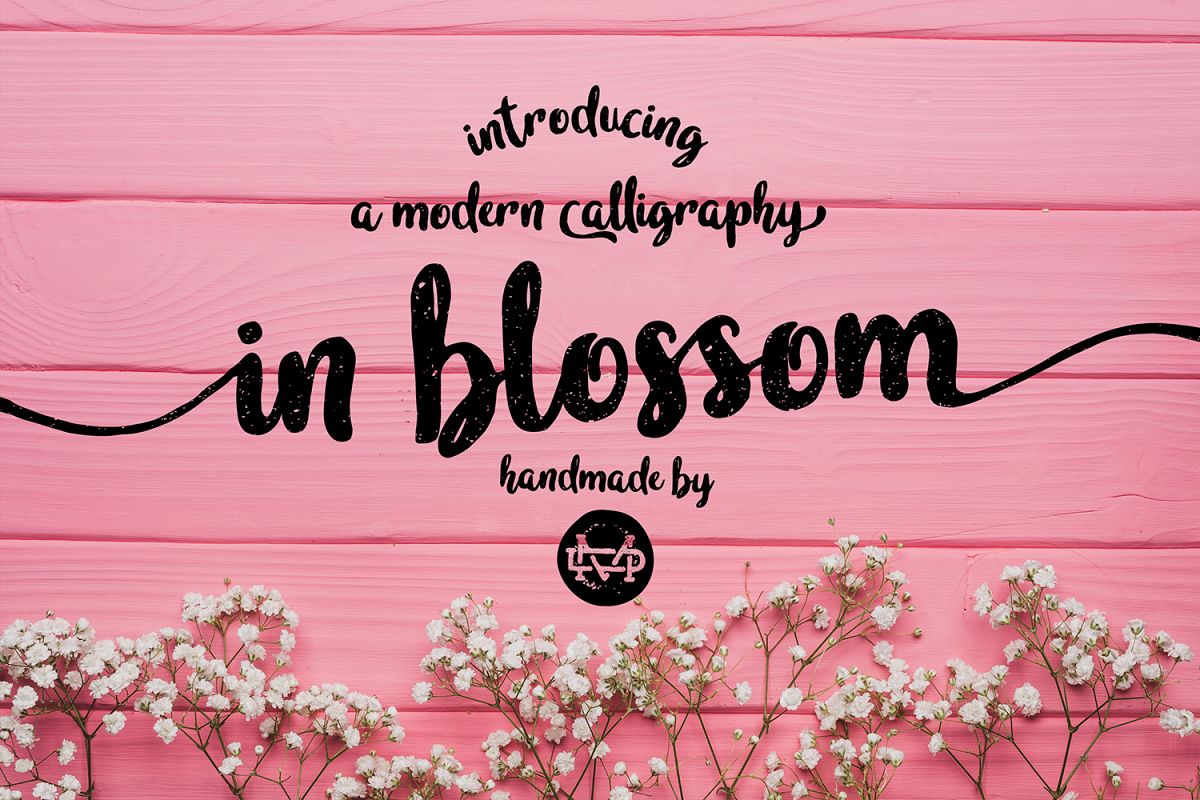
In blossom
Hello I'm really excited to introduce, In blossom a bold handwriting font with cool character! In blossom come more than 350 glyphs and this perfect for all your design or event.Whats Included ?
Feature
• UPPERCASE
• lowercase
• Number & Symbol
• International Glyps
• Alternative UPPERCASE
• Alternative lowercase
• Swashes